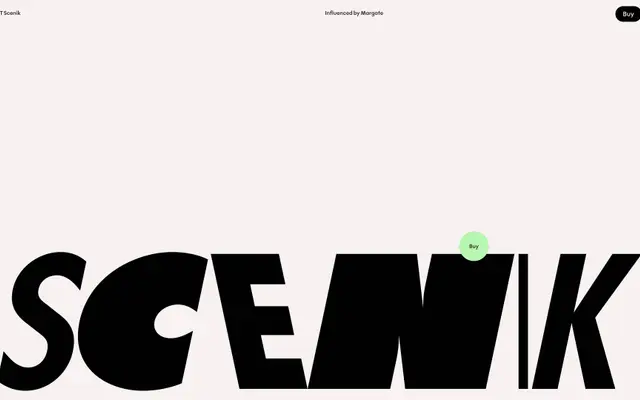
Scenik specimen from Frost
A 78-style grotesque family from Frost spanning 13 weights, with matching italic, retalic and monospaced variants alongside multiple stylistic alternates.
Running from Medium through to Super, the family offers three style variants per weight: upright, italic and a distinctive retalic cut. Stylistic sets include at least four alternate configurations, and a separate mono subfamily extends its use into typographic systems and code. The breadth of weights and the inclusion of a retalic make it a versatile choice for editorial and branding work that needs range without switching families.
Scenik presents as a contemporary grotesque sans-serif with a wide weight range and distinctive stylistic alternates, suggesting a rational yet expressive typeface in the grotesque tradition.